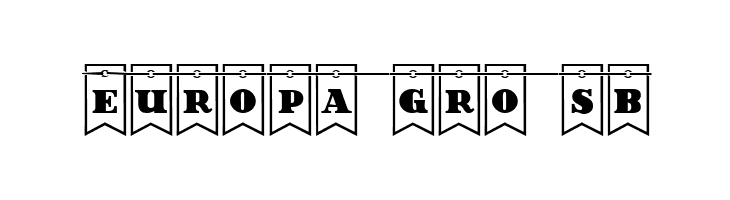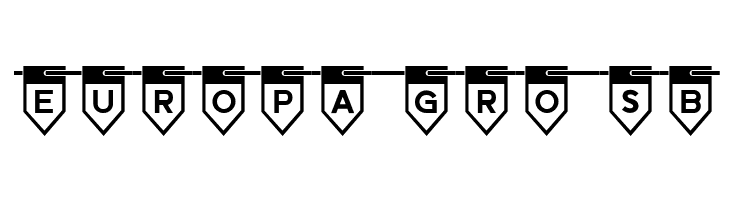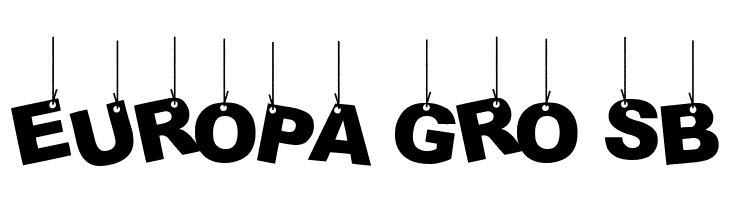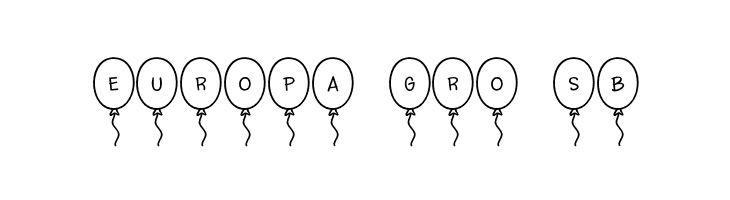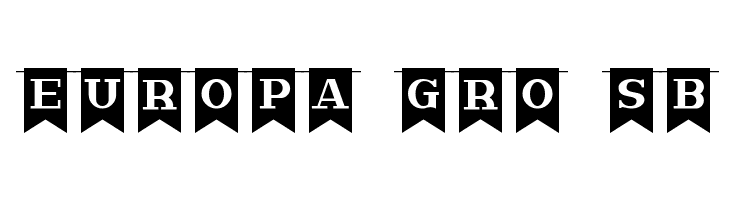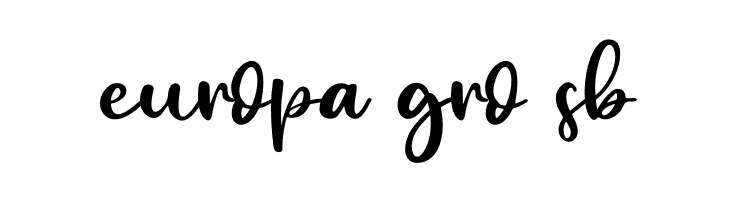
A playful, star-filled font perfect for vibrant and creative projects.
A bold, festive font with candle-like accents, perfect for celebrations.
A playful font with letters and numbers inside cupcake designs, ideal for festive projects.
A festive, snowflake-adorned decorative font perfect for holiday themes.
A playful font with letters inside balloon shapes, perfect for festive occasions.
A playful, decorative font with a hand-drawn, whimsical style on banner backgrounds.
A playful, bold font with characters enclosed in triangular pennants, perfect for festive designs.
A playful, candy-themed decorative font with each character as a unique sweet treat illustration.
Playful, confetti-inspired decorative font with varied geometric shapes.
A playful, decorative font with characters in triangular banners.
Decorative font made of black triangular banner shapes.
A playful, decorative font with characters in triangular banners.
Decorative string of triangular paper banners.
A whimsical, hand-drawn font with playful swirls and decorative elements.
A decorative font with St. Patrick's Day-themed illustrations.
A playful, bold font with characters in flag shapes, perfect for festive designs.
A bold, decorative font with dotted patterns for a festive look.
A playful font with characters inside balloon shapes, perfect for festive designs.
A playful font with characters enclosed in flag-like banners, ideal for decorative use.
A playful and whimsical script font with decorative loops and elegant flourishes.